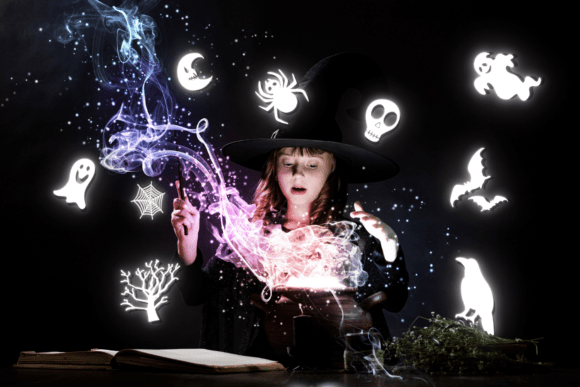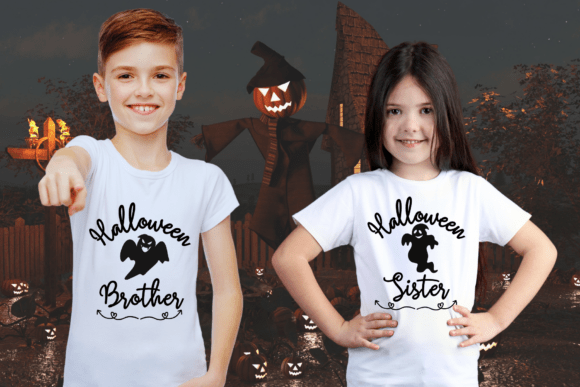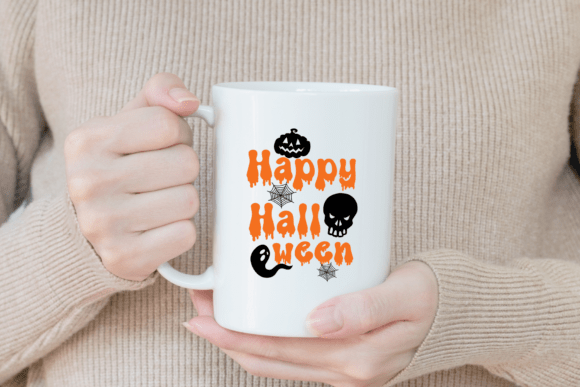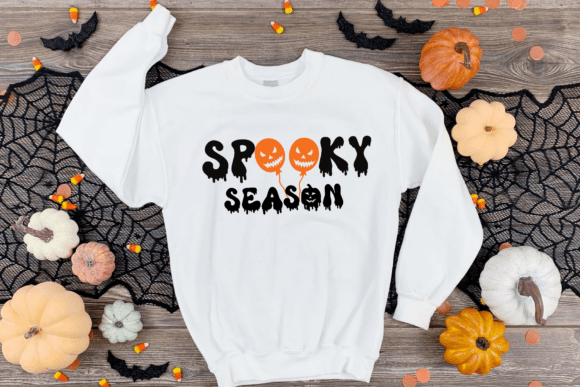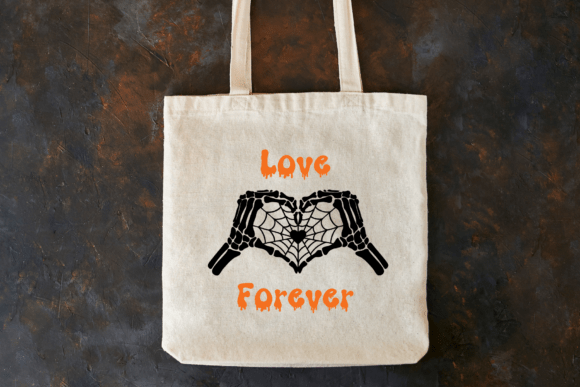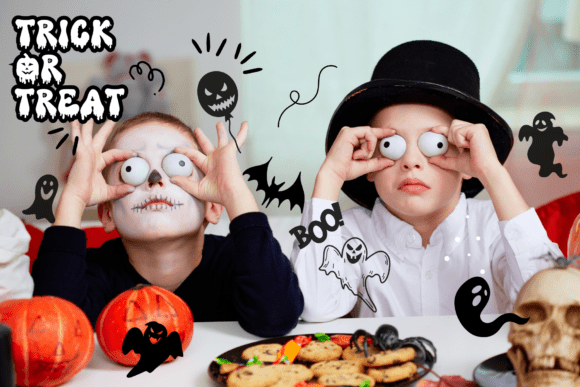
Halloween Doodle Font: Add a Spooky Touch to Your Designs
Are you looking for a unique and festive way to add some Halloween spirit to your designs? Look no further than the Halloween Doodle Font! This fun and spooky dingbat font is filled with Halloween-themed symbols that are perfect for adding a creepy and kooky touch to your projects.
What is Halloween Doodle Font?
Halloween Doodle Font is a specially designed dingbat font that features a wide range of Halloween-themed symbols. From cute and cuddly pumpkins to creepy ghosts and bats, this font has everything you need to create spooky and festive designs. The font includes a variety of icons, such as:
• Pumpkins and jack-o-lanterns
• Ghosts and ghouls
• Bats and spiders
• Witches and wizards
• Candies and treats
• Halloween-themed borders and frames
Halloween Doodle Font is perfect for designers and crafters who want to add a personal touch to their Halloween projects. Whether you’re creating invitations, decorations, or DIY crafts, this font is sure to inspire your creativity. With its wide range of symbols and icons, you can use it to create:
• Halloween party invitations and flyers
• Spooky and festive decorations, such as garlands and banners
• DIY crafts, such as cards, gift tags, and scrapbook pages
Why Choose Halloween Doodle Font?
So why choose Halloween Doodle Font over other fonts and graphics? Here are just a few reasons:
• Unique and exclusive designs: Halloween Doodle Font features unique and exclusive designs that you won’t find anywhere else.
• Easily customizable: The font is easily customizable, so you can adjust the size, color, and style to fit your needs.
• Wide range of uses: You can use Halloween Doodle Font for a wide range of projects, from digital designs to print projects.
• Fun and festive: The font is designed to be fun and festive, adding a touch of Halloween spirit to your designs.
Here are some tips and tricks for getting the most out of Halloween Doodle Font:
• Experiment with different colors and styles: Try out different colors and styles to add depth and interest to your designs.
• Combine with other fonts and graphics: Combine Halloween Doodle Font with other fonts and graphics to create unique and eye-catching designs.
• Use for seasonal and holiday projects: Use Halloween Doodle Font for seasonal and holiday projects, such as Christmas or Easter designs.